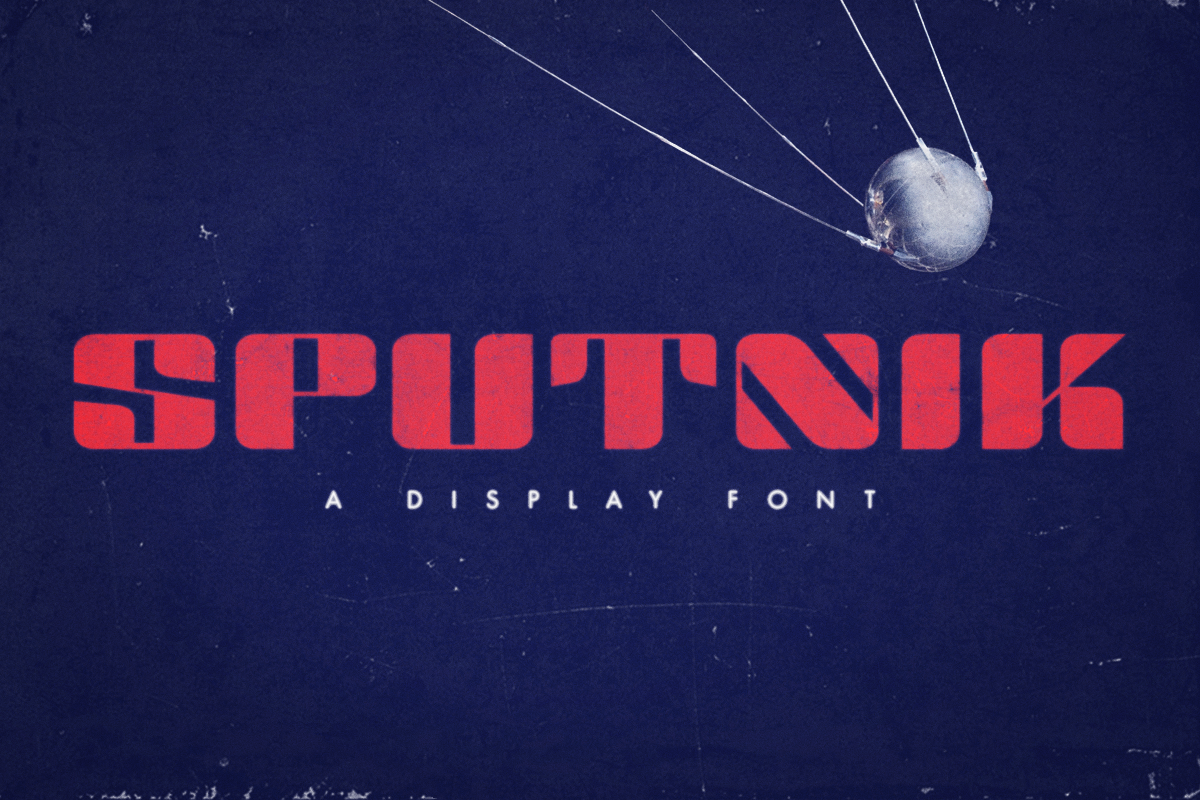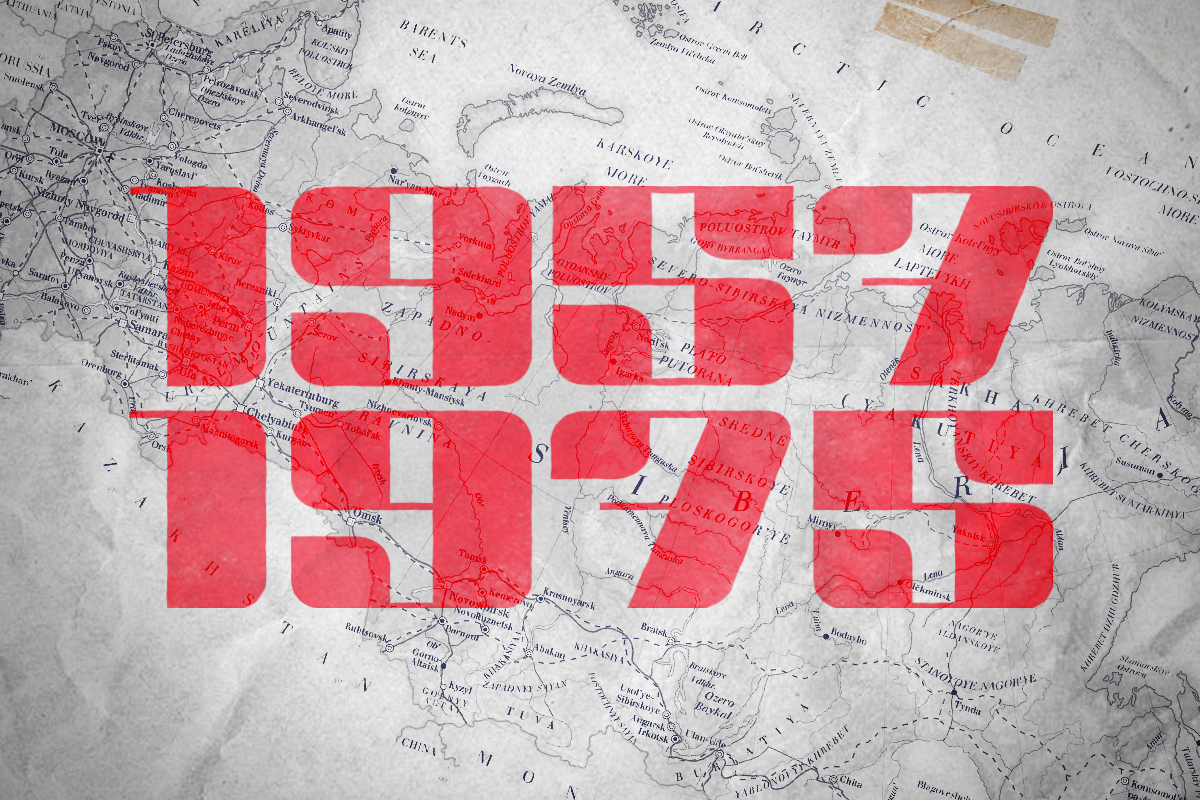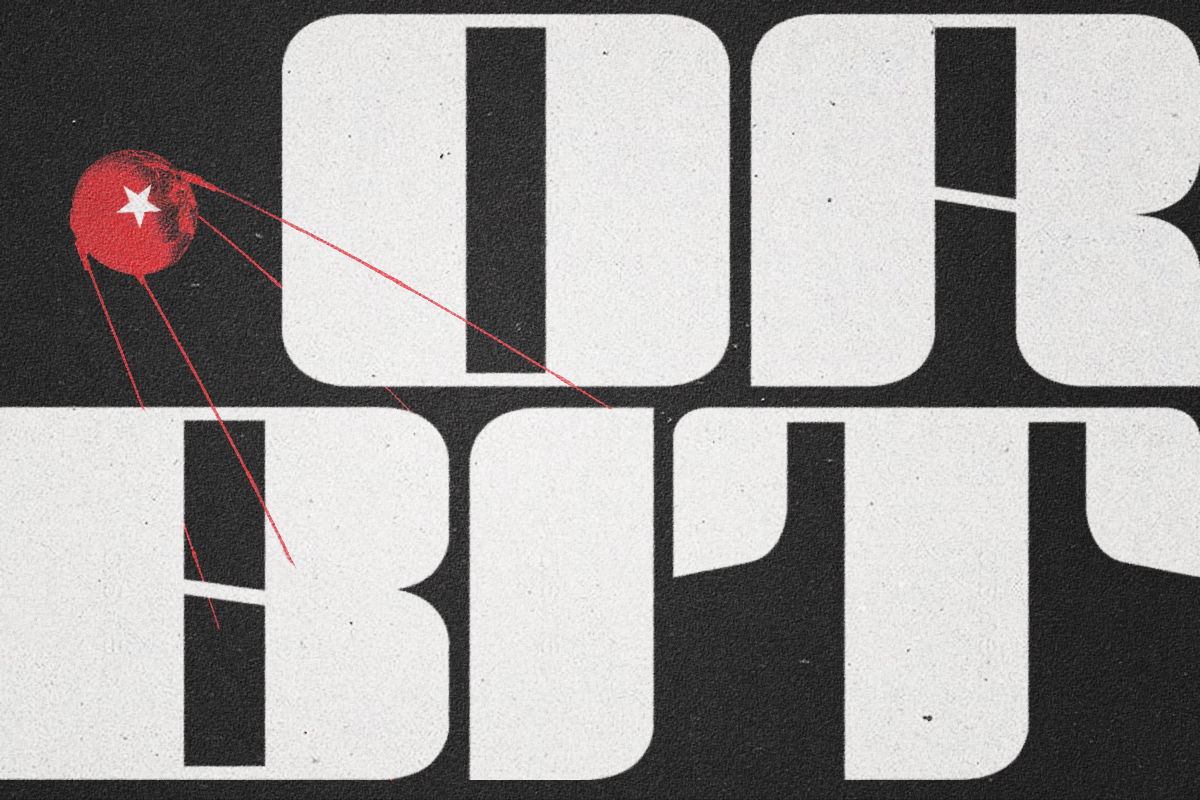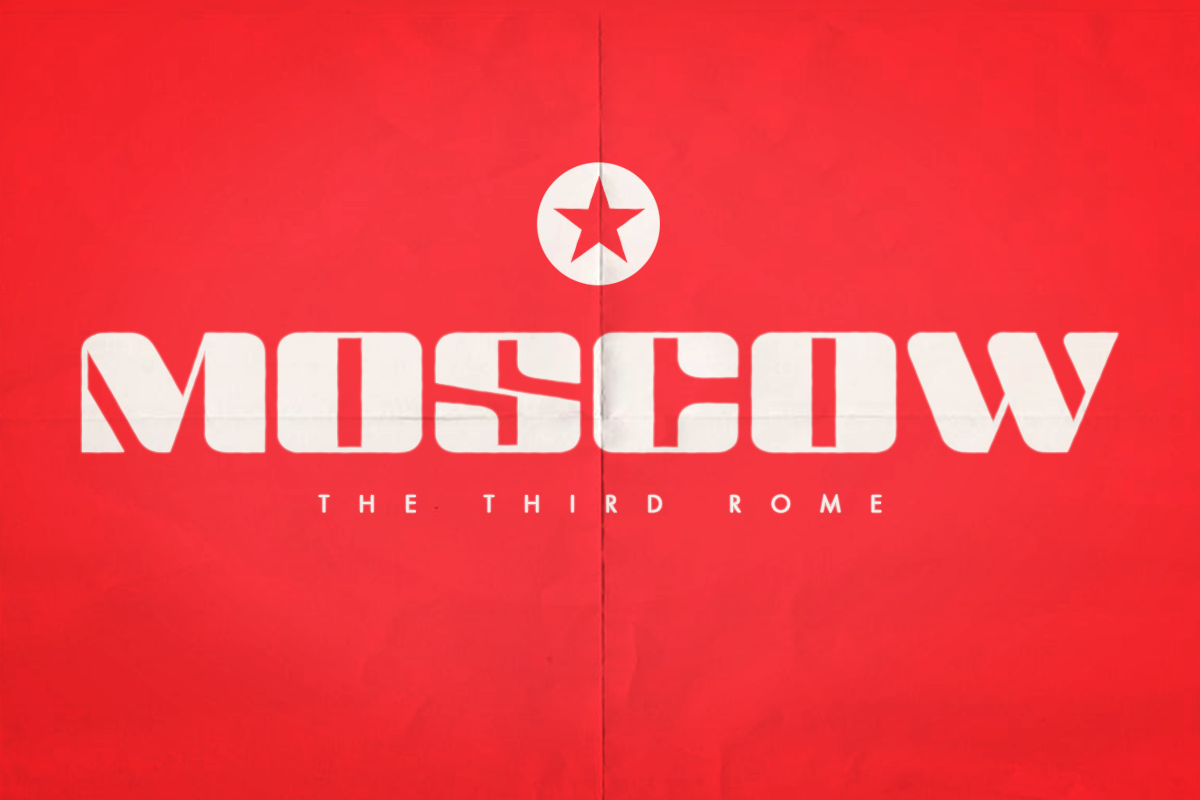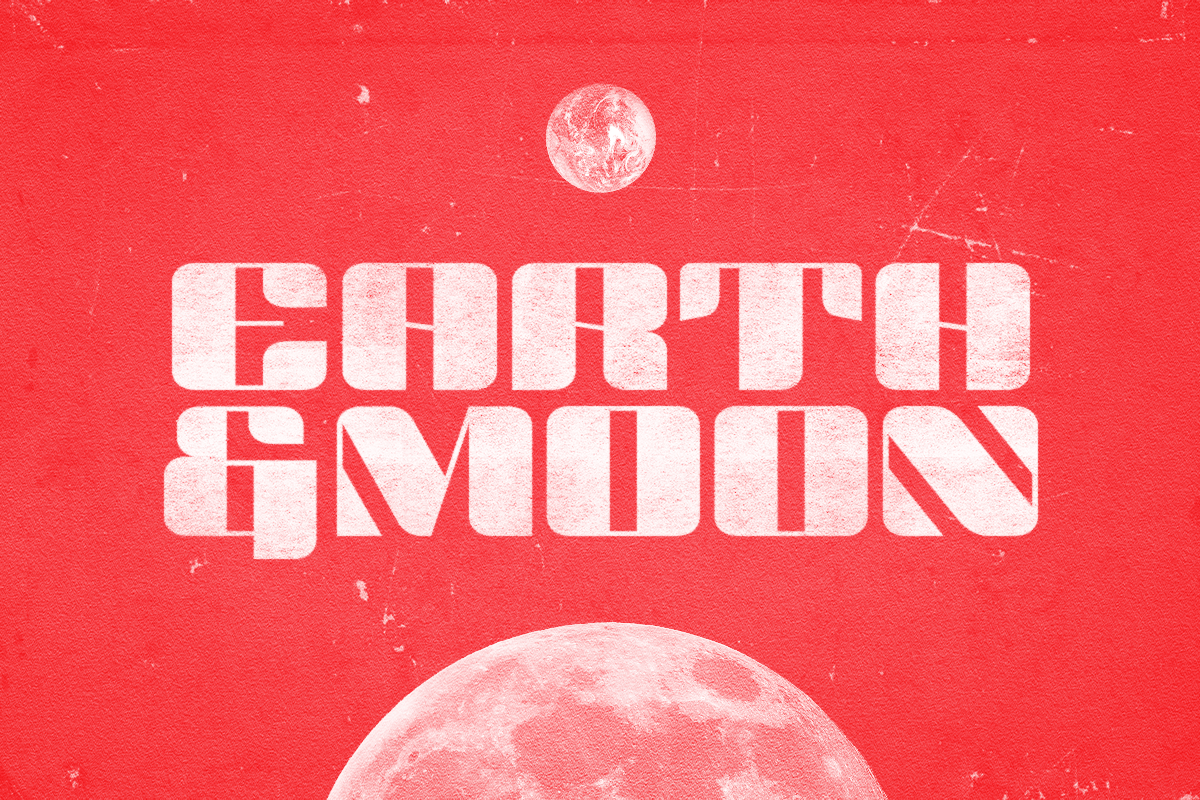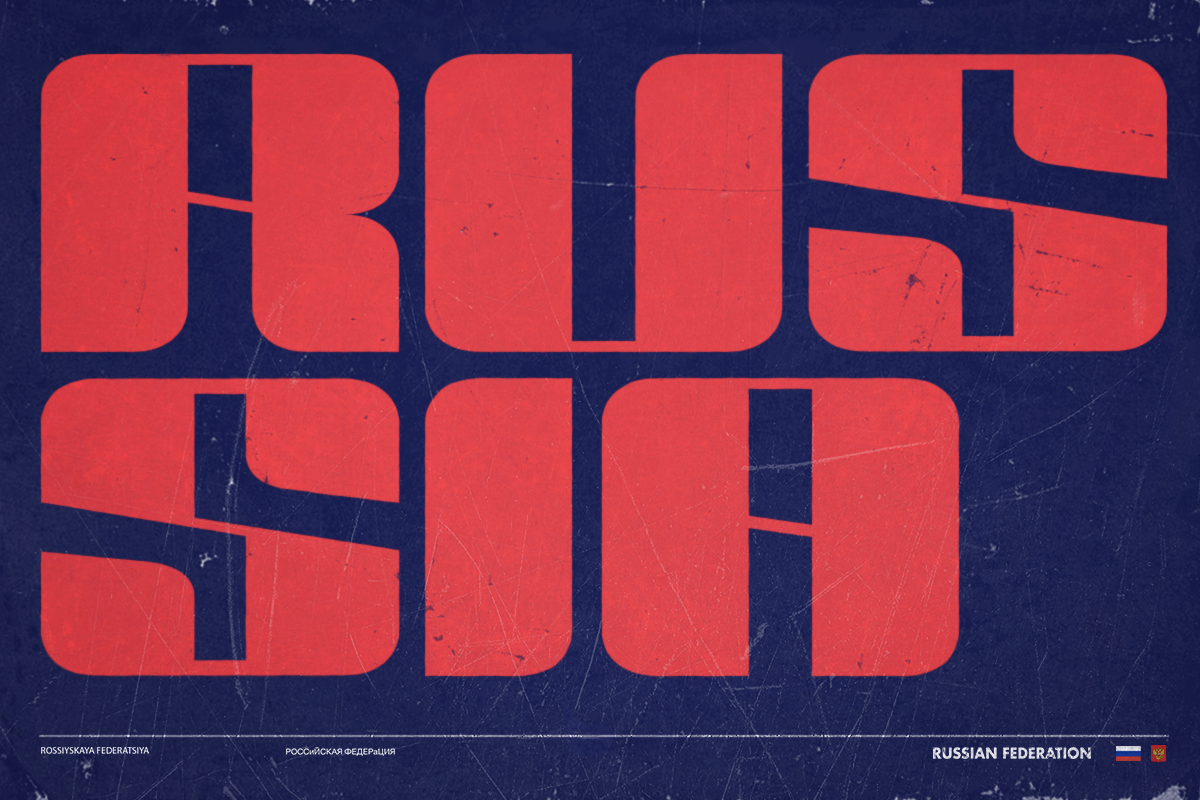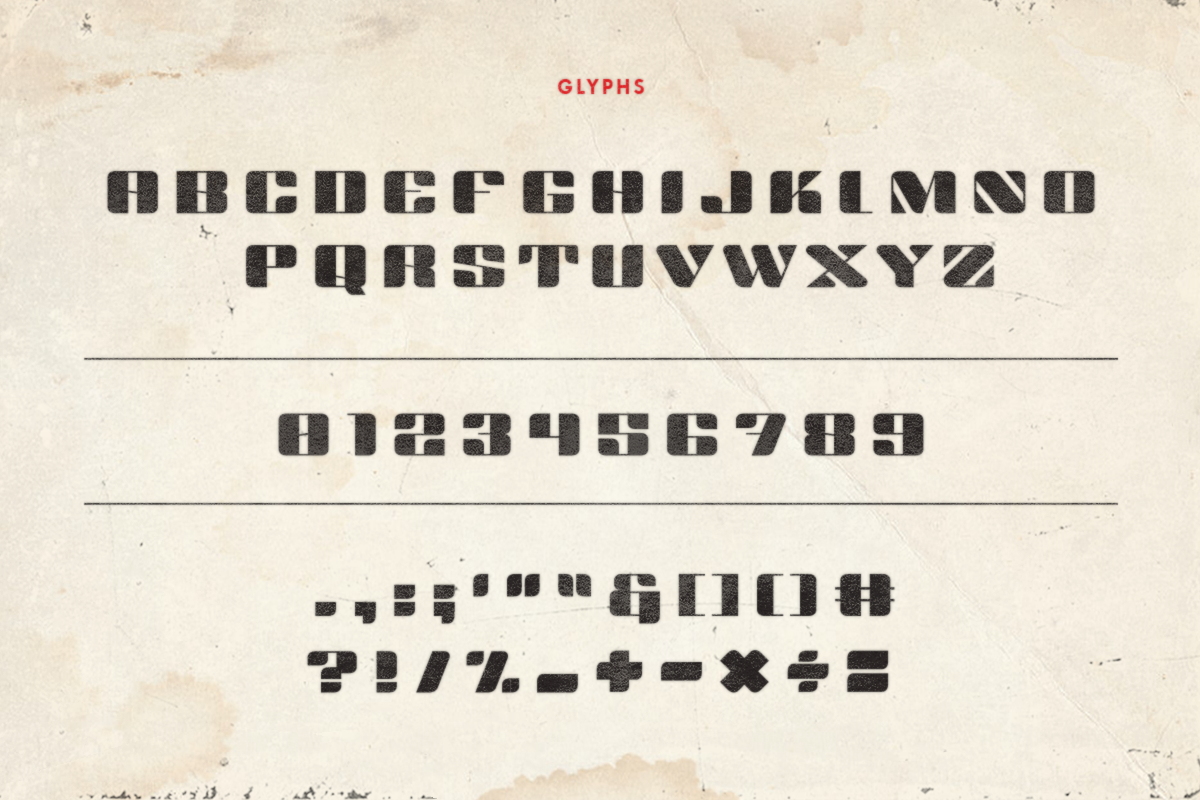
SPUTNIK Font
SPUTNIK is an all caps font that stands out. He's big, bulky and with a strong voice. Common folks confuse this with yelling, but this font has a golden heart. Best friends for this guy are serif fonts (especially the geometric ones) but, due to some past experiences, he keeps his distance with the traditional serif fonts -not loud enough- he said once. SPUTNIK seems shy and has an old soul, but right now he's finding his way out of the shell, he’s meeting new people and totally wants to take part in your challenging project!